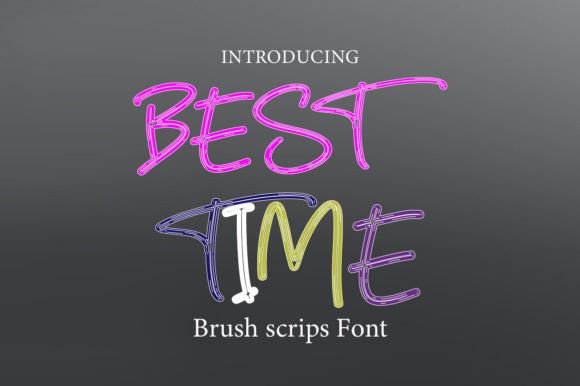
Embark on a delightful journey into the world of typography with Best Time Font, a captivating script font handmade by the talented gunaloe12. This enthralling font family, exclusively curated for Everyman Brand, is a treasure trove of creative possibilities, ready to elevate your designs to new heights.
Get swept away by the charm of Best Time Font, a captivating dance of flowing lines and elegant curves that mimic the beauty of handwritten letters. Its innate authenticity and organic appeal add a touch of warmth and familiarity to any project, making it an instant favorite among designers and typography enthusiasts alike.
With Best Time Font at your disposal, the boundaries of creativity dissolve, making way for a universe of captivating designs. Whether you're crafting logos that exude sophistication, designing eye-catching social media posts, or creating personalized invitations that leave a lasting impression, this font is your ultimate companion.
Immerse yourself in a symphony of styles as Best Time Font seamlessly adapts to a myriad of design endeavors. From whimsical illustrations to heartfelt greeting cards, and from enchanting posters to captivating branding materials, this font possesses the versatility to transform your creative visions into tangible masterpieces.
Unleash your imagination and let Best Time Font guide you through a world where creativity thrives. Its meticulously crafted characters, imbued with a touch of playfulness and boundless charm, will effortlessly elevate your designs, leaving an indelible mark on your audience.